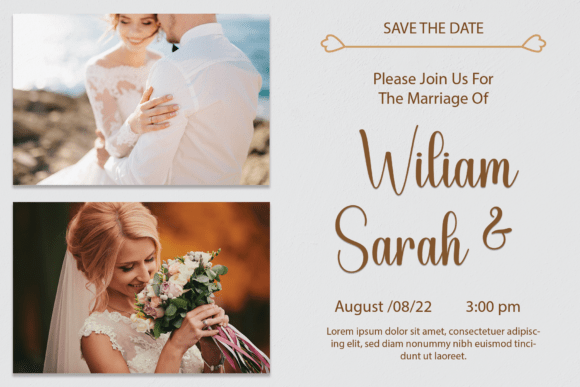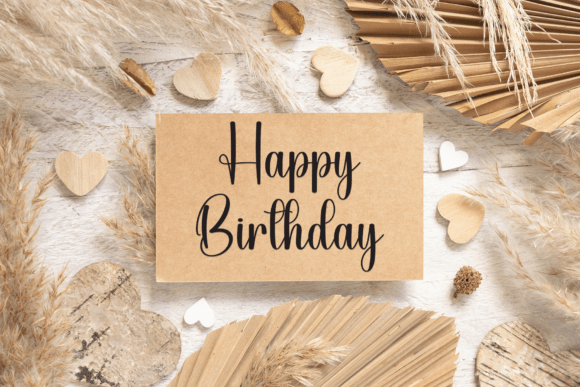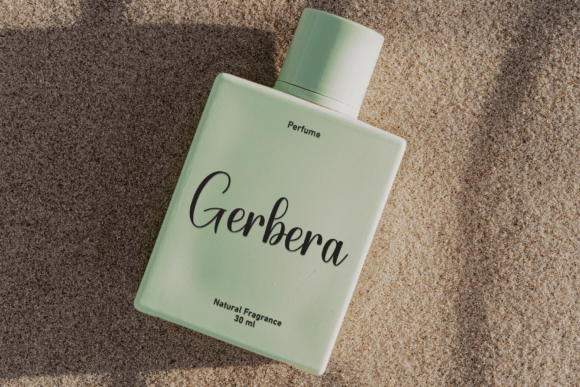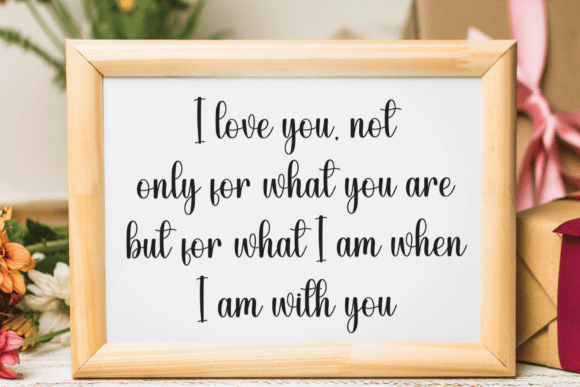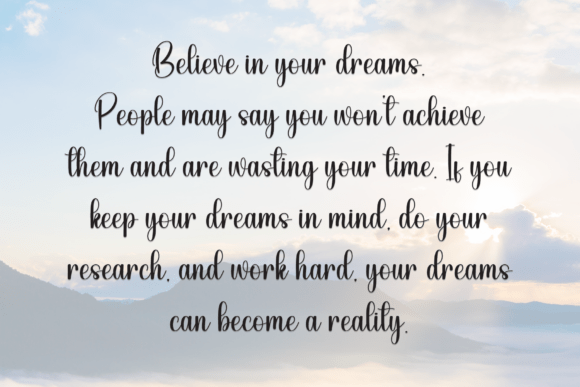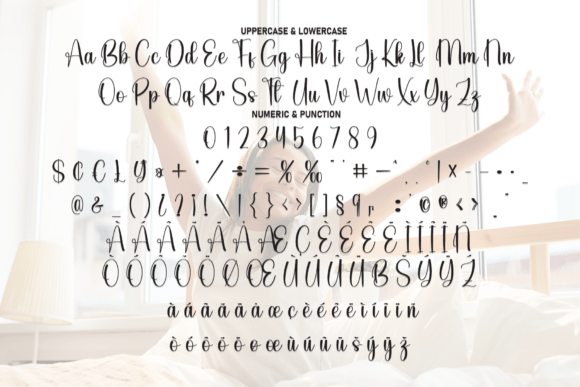
Introducing Happy Morning Font: The Sweetest Way to Start Your Day
Welcome to the delightful world of our handwritten display font, Happy Morning Font, where sweetness greets you at every stroke. Imbued with an affable charm, this font derives its inspiration from sweet relationships and fun-filled moments – making it the perfect choice for your heartfelt wedding invitations, endearing greeting cards, or any design longing for a playful infusion.
The Inspiration Behind Happy Morning Font
Our Happy Morning Font is more than just a collection of letters; it’s a reflection of the joy and warmth that comes with sharing special moments with loved ones. We’ve carefully crafted each character to exude a sense of playfulness and elegance, making it ideal for designs that require a personal touch. Whether you’re a designer, crafter, or simply someone who loves to create, Happy Morning Font is sure to bring a smile to your face and inspire your creativity.
Perfect for Heartfelt Designs
Happy Morning Font is the perfect choice for designers and crafters who want to add a touch of whimsy and romance to their work. Here are just a few ideas for how you can use our font:
- Wedding Invitations: Make your wedding invitations truly special with Happy Morning Font. Our font’s elegant and playful style is sure to set the tone for a joyful and unforgettable celebration.
- Greeting Cards: Add a personal touch to your greeting cards with Happy Morning Font. Whether it’s a birthday, anniversary, or just because, our font is sure to make your card stand out.
- Party Decorations: Create playful and eye-catching party decorations with Happy Morning Font. From birthday banners to party invitations, our font is sure to add a touch of magic to your celebration.
Unleash Your Creativity with Happy Morning Font
Happy Morning Font is more than just a font – it’s a tool for self-expression and creativity. With its unique and playful style, our font gives you the freedom to experiment and try new things. Here are a few tips for getting the most out of Happy Morning Font:
- Experiment with Colors: Don’t be afraid to try out different colors and color combinations with Happy Morning Font. Our font’s playful style looks great in a variety of colors, from bright and bold to soft and pastel.
- Mix and Match: Try pairing Happy Morning Font with other fonts and design elements to create a unique and eye-catching look.
- Have Fun: Most importantly, remember to have fun with Happy Morning Font! Our font is designed to bring joy and creativity to your designs, so don’t be afraid to let your personality shine through.
Why Choose Happy Morning Font?
With so many fonts to choose from, why should you choose Happy Morning Font? Here are just a few reasons why our font stands out:
- Unique and Playful Style: Happy Morning Font has a unique and playful style that’s sure to make your designs stand out.
- Elegant and Whimsical: Our font’s elegant and whimsical style makes it perfect for a wide range of designs, from wedding invitations to party decorations.
- Easy to Read: Despite its playful style, Happy Morning Font is easy to read and understand, making it perfect for designs that require a clear and concise message.
In conclusion, Happy Morning Font is the perfect choice for designers and crafters who want to add a touch of whimsy and romance to their work. With its unique and playful style, our font is sure to inspire your creativity and bring joy to your designs. So why wait? Download Happy Morning Font today and start creating your own unique and eye-catching designs!
Transform Your Designs with Happy Morning Font
Imagine being able to transform your designs into a roller coaster of mirth and tender emotions. With Happy Morning Font, you can do just that. Our font’s playful and elegant style is sure to breathe life into your otherwise staid compositions, making them truly unforgettable. So don’t settle for ordinary designs – choose Happy Morning Font and let the magic begin!
Embrace the Difference
At the end of the day, it’s the little things that make a big difference. With Happy Morning Font, you can replace the mundane with the extraordinary, adding a touch of whimsy and romance to your designs. So why settle for ordinary fonts when you can have a font that truly stands out? Choose Happy Morning Font today and discover a world of creative possibilities!